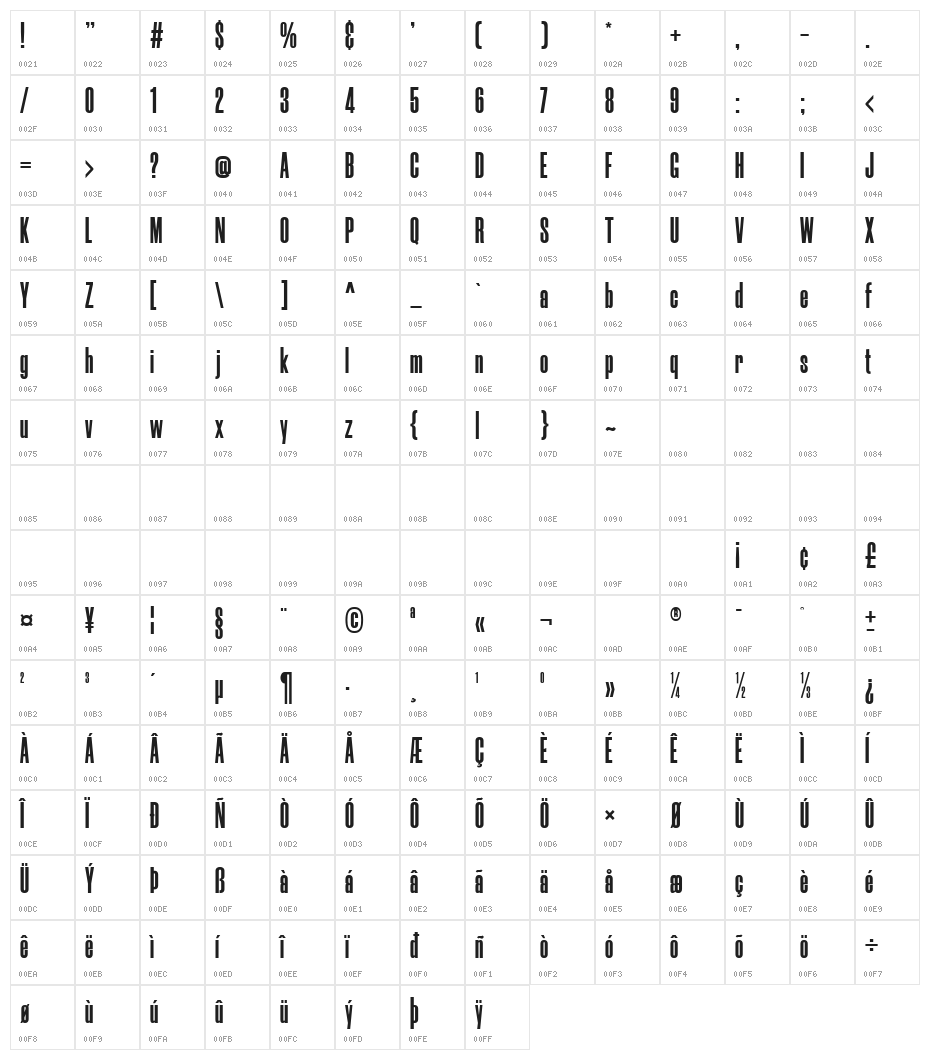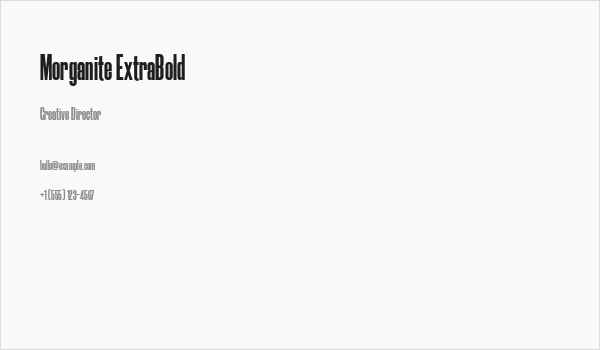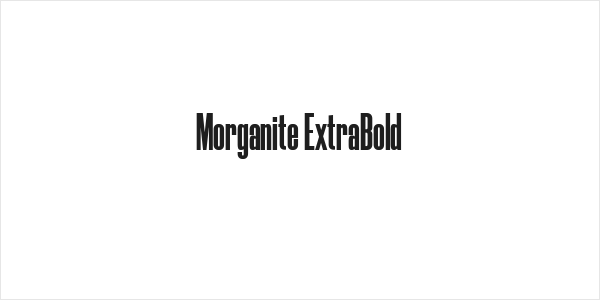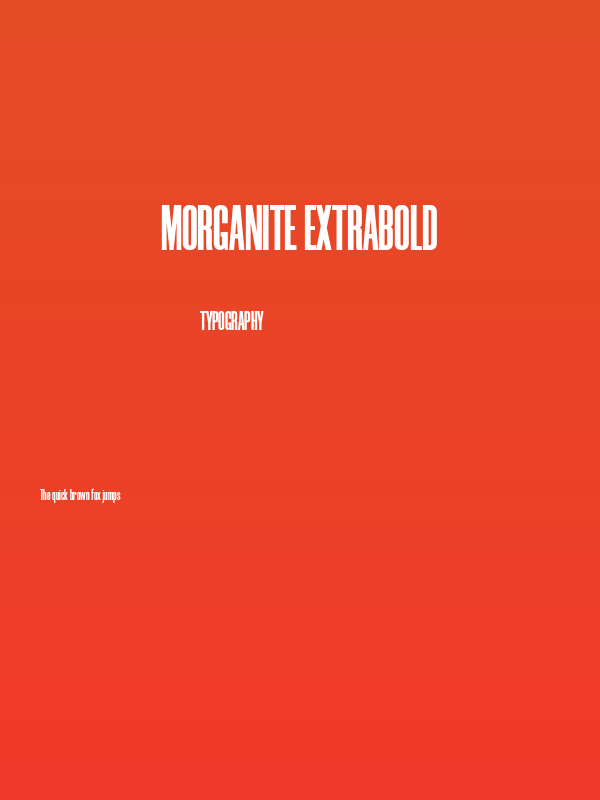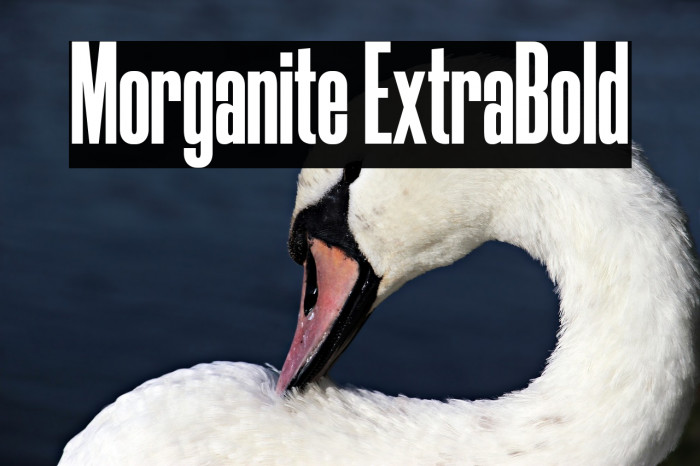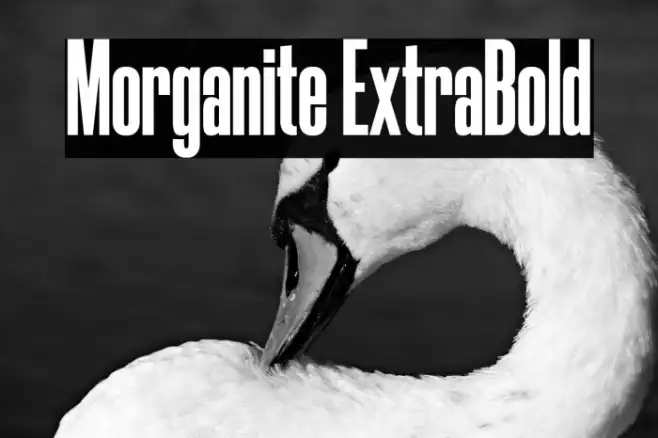
Morganite ExtraBold Font
Morganite ExtraBold Description
This typeface features a bold and impactful design, characterized by its tall, narrow letterforms and strong vertical emphasis. The strokes are uniformly thick, giving it a robust and commanding presence. The uppercase and lowercase letters maintain a consistent height ratio, ensuring readability while conveying a sense of modernity and strength. The numerals are equally bold, matching the overall aesthetic of the alphabet. Special characters are designed with the same weight and style, making them seamlessly integrate with the text. This font is ideal for making a statement, with its clean lines and powerful appearance.
| Proposed Projects | Ideal for headlines, posters, branding, and any project requiring a strong visual impact. |